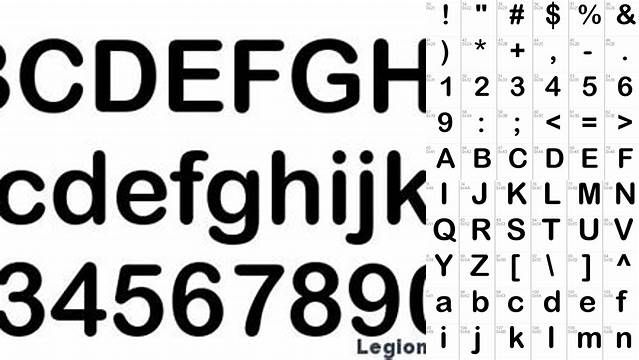
What is Arial Rounded MT Bold?
Arial Rounded MT Bold is a versatile sans-serif font that’s instantly recognizable. Known for its softened, rounded terminals, it offers a friendly and approachable aesthetic. Unlike its parent font, Arial, which is more rigid, Arial Rounded MT Bold has a softer look that makes it ideal for various applications, including headlines, logos, and body text. Its clean and modern appearance makes it a favorite among designers and businesses alike. The font's bold weight ensures that it's easily legible, even at smaller sizes, making it a practical choice for a wide range of design projects. The font is not only visually appealing but also incredibly functional, which is why it is such a popular choice. The font’s design, with its smooth curves and balanced proportions, creates a welcoming and engaging feel, perfect for modern design applications. The design’s simplicity ensures that it's readable in various settings. So, whether you’re working on a website, a print document, or a presentation, Arial Rounded MT Bold can enhance the overall look and feel of your project. The font's unique characteristics make it a standout choice in a world of typography. This font can be used to create professional-looking materials, making it a versatile choice for any project. So, if you're looking for a font that's both stylish and functional, Arial Rounded MT Bold is an excellent option to consider.
Key Features of Arial Rounded MT Bold
- Rounded Terminals: This is the defining feature that gives it a softer, more approachable look.
- Bold Weight: Ensures excellent legibility, even in smaller sizes.
- Sans-serif: Modern and clean, suitable for a wide variety of uses.
- Versatility: Works well for headlines, body text, and logos.
- Professional Appeal: A popular choice in corporate and creative design.
Using Arial Rounded MT Bold in Your Projects
So, you've got the font, now what? Arial Rounded MT Bold can be used in a multitude of design projects, from websites to printed materials. The possibilities are almost endless, from creating professional-looking documents to crafting engaging visuals for your brand. Its versatility makes it a great choice for various design applications. Knowing how to use it effectively is key to achieving the best results. Let's dive into some practical applications and tips for making the most of this great font. Let's explore how to use the font effectively. Let's explore some best practices.
Design Applications
- Websites: Ideal for headings, subheadings, and body text. Its readability makes it perfect for online content. It's easy to read on screens, which makes it a perfect choice for websites. Its clean look gives websites a modern feel.
- Logos: The rounded design gives a friendly and approachable feel, making it perfect for brand logos. The bold weight makes it easy to read, even when scaled down.
- Posters and Flyers: Excellent for grabbing attention and conveying information quickly. The clean look ensures that it is easily seen and understood. Its bold weight is perfect for posters and flyers.
- Presentations: Great for clear and concise text, ensuring your audience can easily read the content. It helps to create visually appealing presentations. The font's easy-to-read design helps keep your audience engaged.
- Documents: Perfect for both professional and personal documents, providing a clean and readable layout. Its versatility makes it great for any type of document.
Conclusion: Arial Rounded MT Bold and You